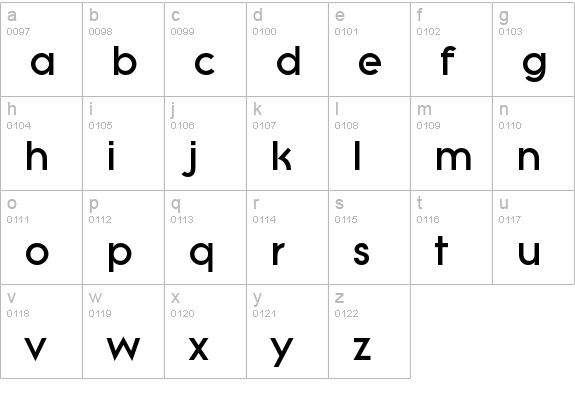
LitheExtrabold Regular Font Details
LitheExtrabold Regular is the standard, neutral variant in the LitheExtrabold typeface family \xE2\x80\x94 well suited to general body text, paragraphs, and standard typographic work.
LitheExtrabold Regular font is a modern and stylish typeface that exudes confidence and elegance. With its bold and sleek design, this font is perfect for making a statement in your designs. The sharp, clean lines of LitheExtrabold Regular font give it a contemporary and sophisticated look that is sure to captivate your audience. What makes LitheExtrabold Regular font even more appealing is that it is available for free download at FontsMarket.com. This means you can easily access this stunning font and use it in your projects without any cost. Whether you are working on branding, advertising, or any other design project, LitheExtrabold Regular font will surely elevate your work and make it stand out. Don't miss out on this opportunity to enhance your designs with the striking beauty of LitheExtrabold Regular font. Download it for free today and see the difference it can make in your creative endeavors.